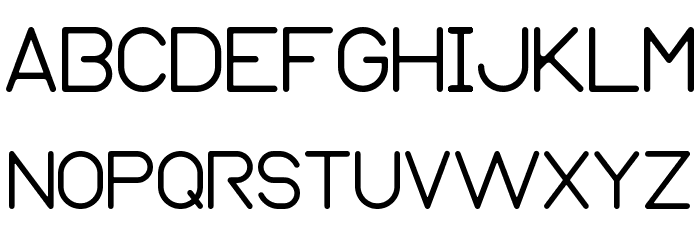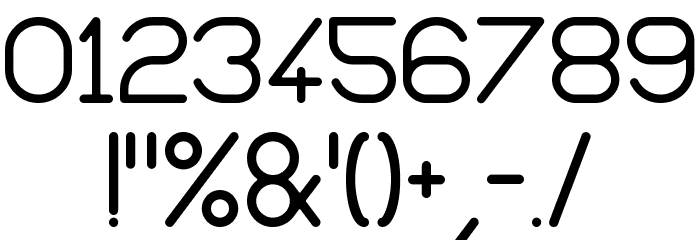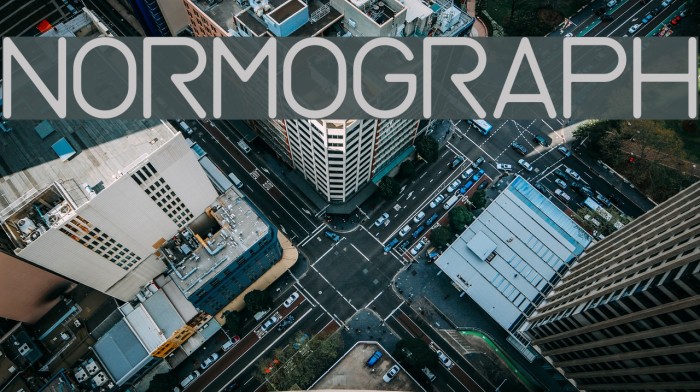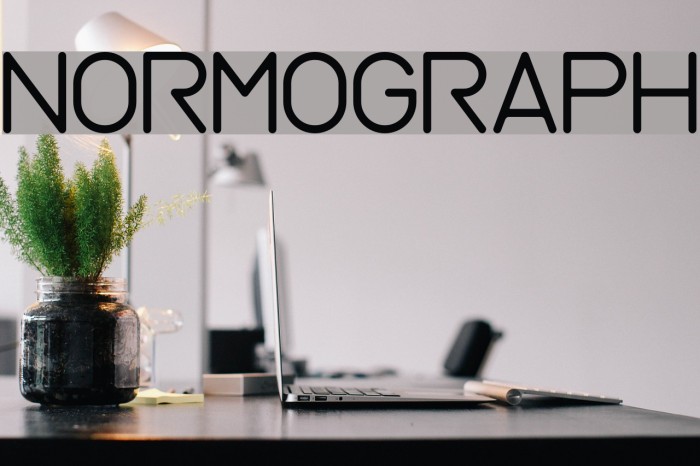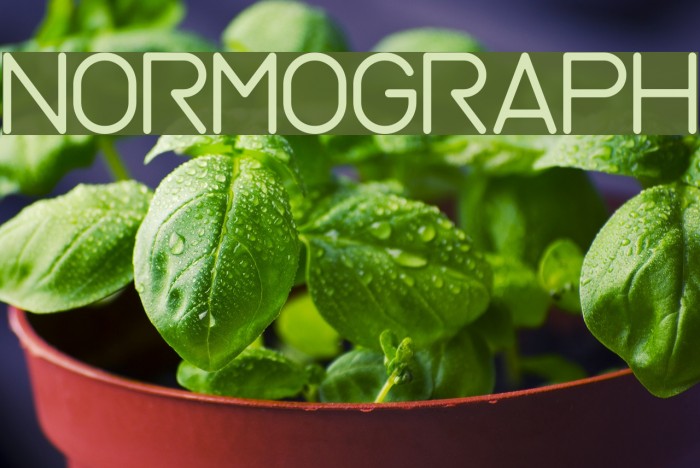
Normograph Font
This font features a clean, geometric design with rounded edges, giving it a modern and approachable appearance. The characters are evenly spaced, contributing to its readability. The uppercase and lowercase letters maintain a consistent style, with a uniform stroke width that adds to its simplicity and elegance. The numerals are clear and distinct, matching the overall aesthetic of the alphabet characters. Special characters are well-integrated, ensuring versatility in various applications. This font is ideal for projects that require a contemporary and professional look.
A modern, geometric font with rounded edges and uniform stroke width.
- Proposed Projects: Ideal for branding, signage, digital interfaces, and editorial design.